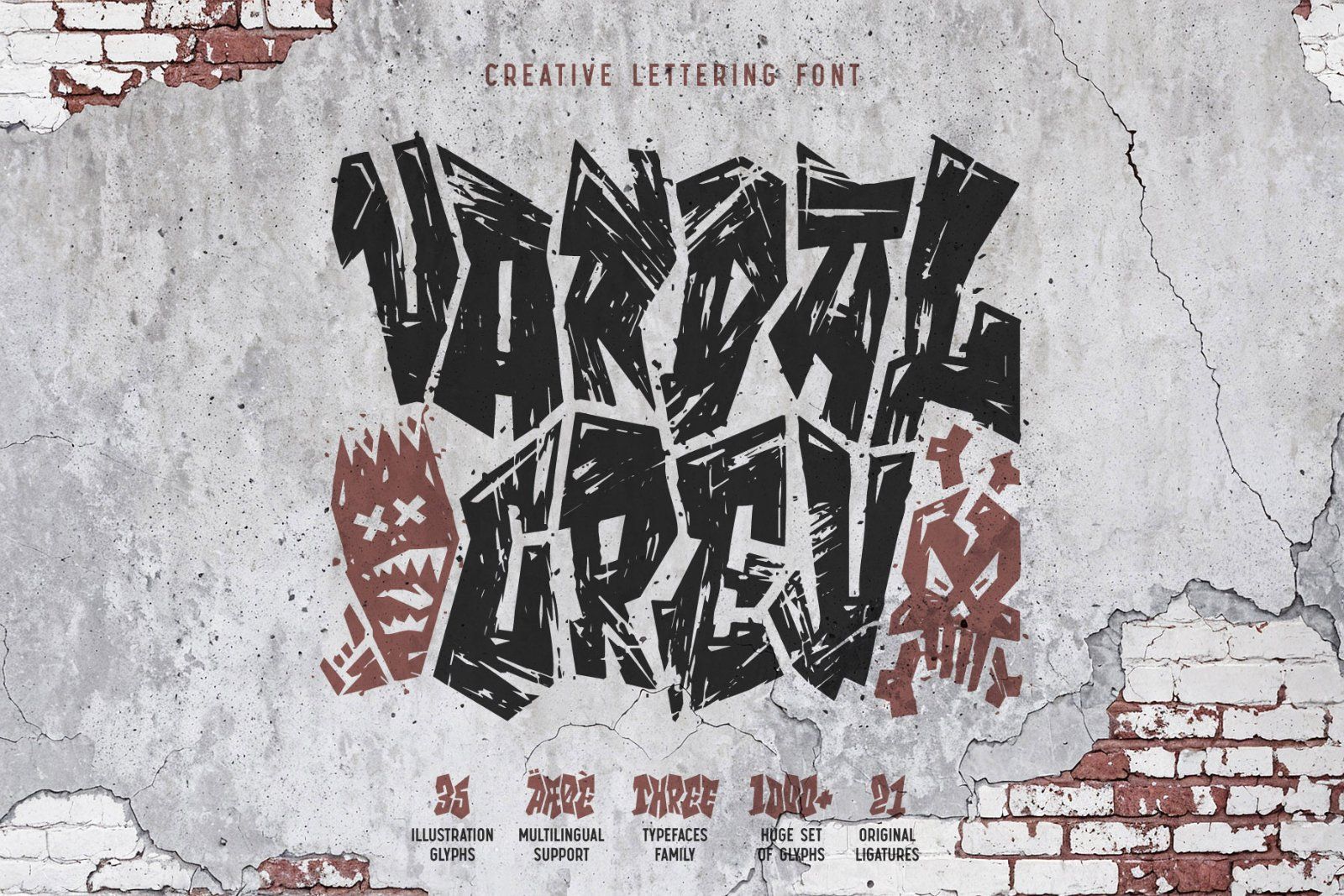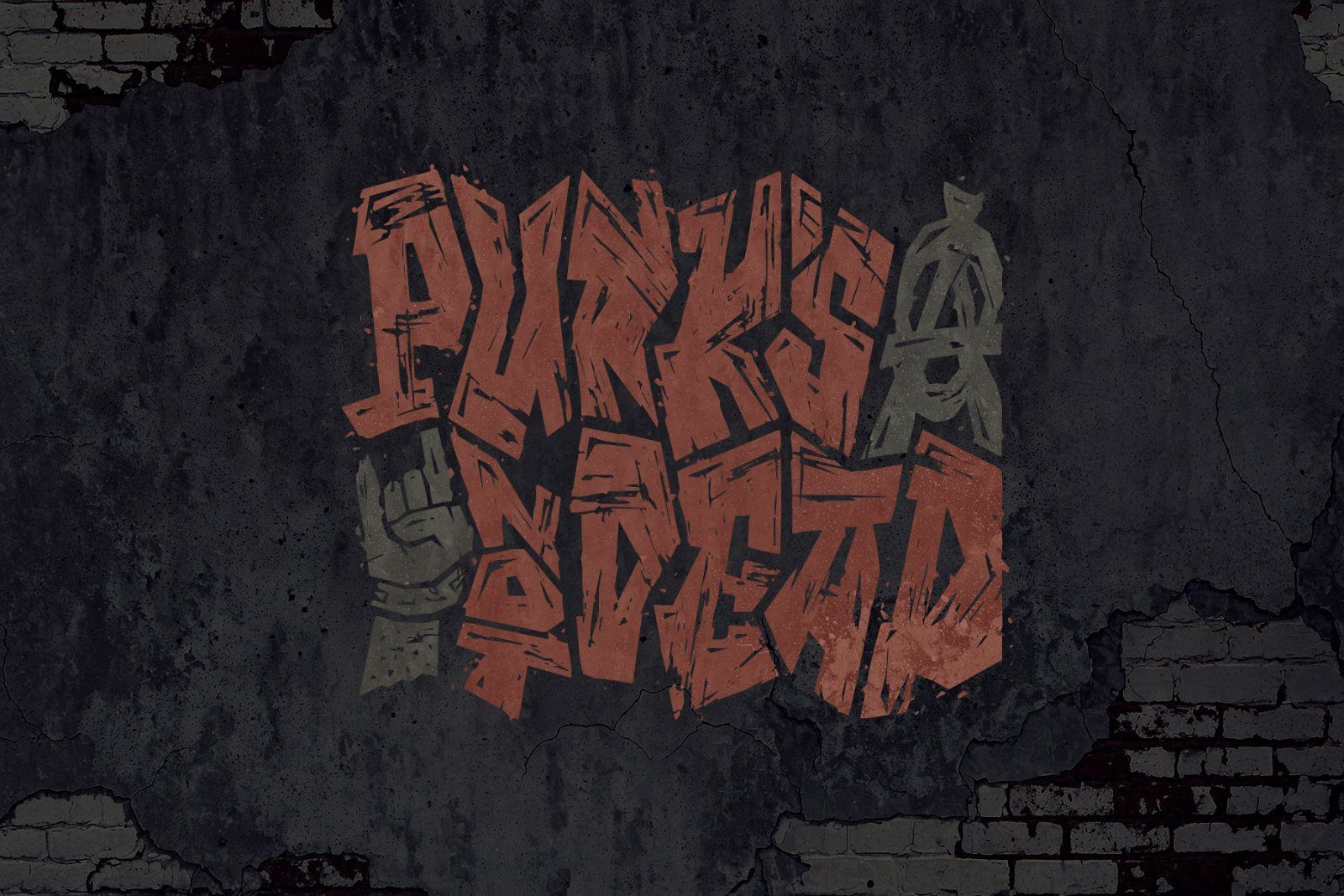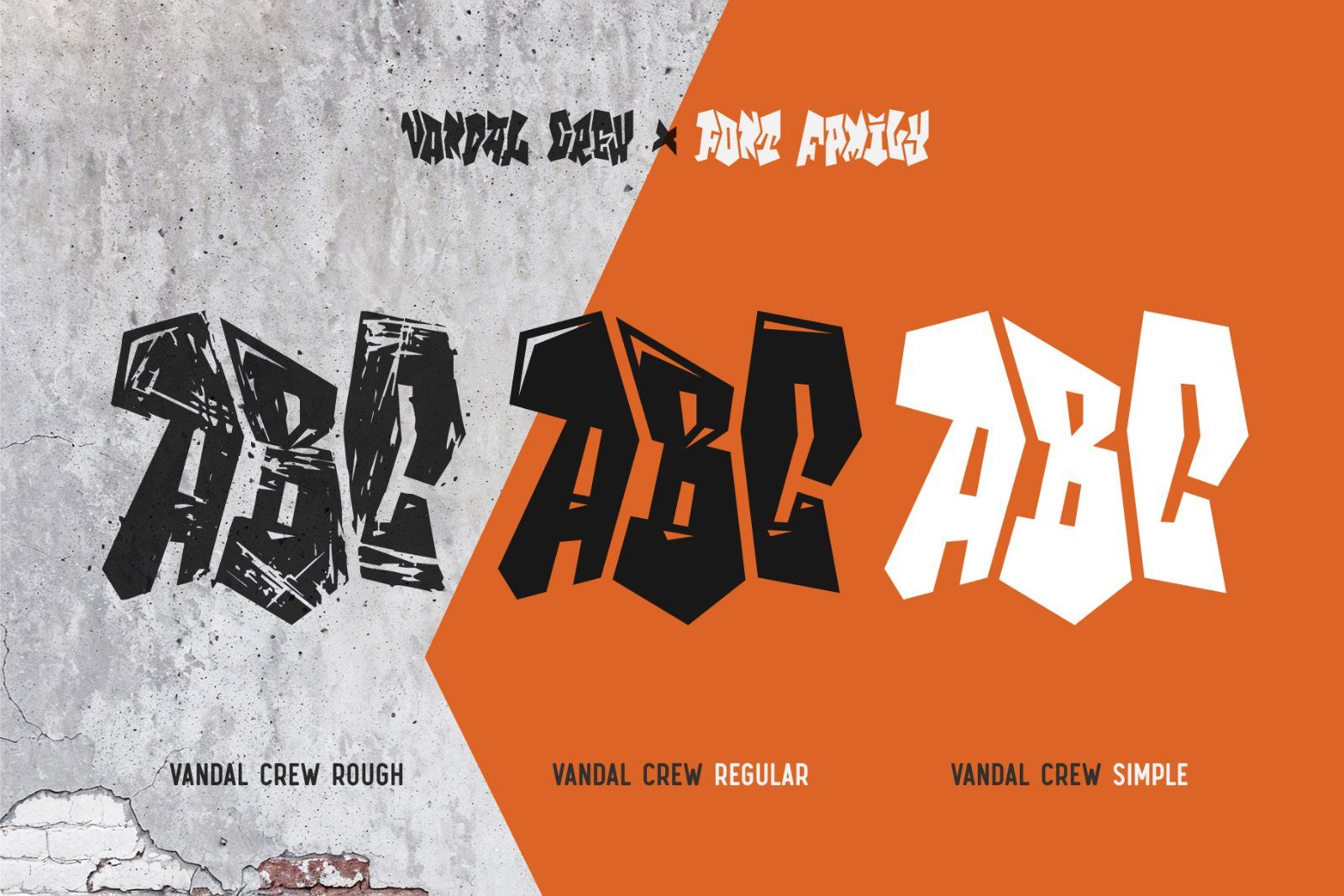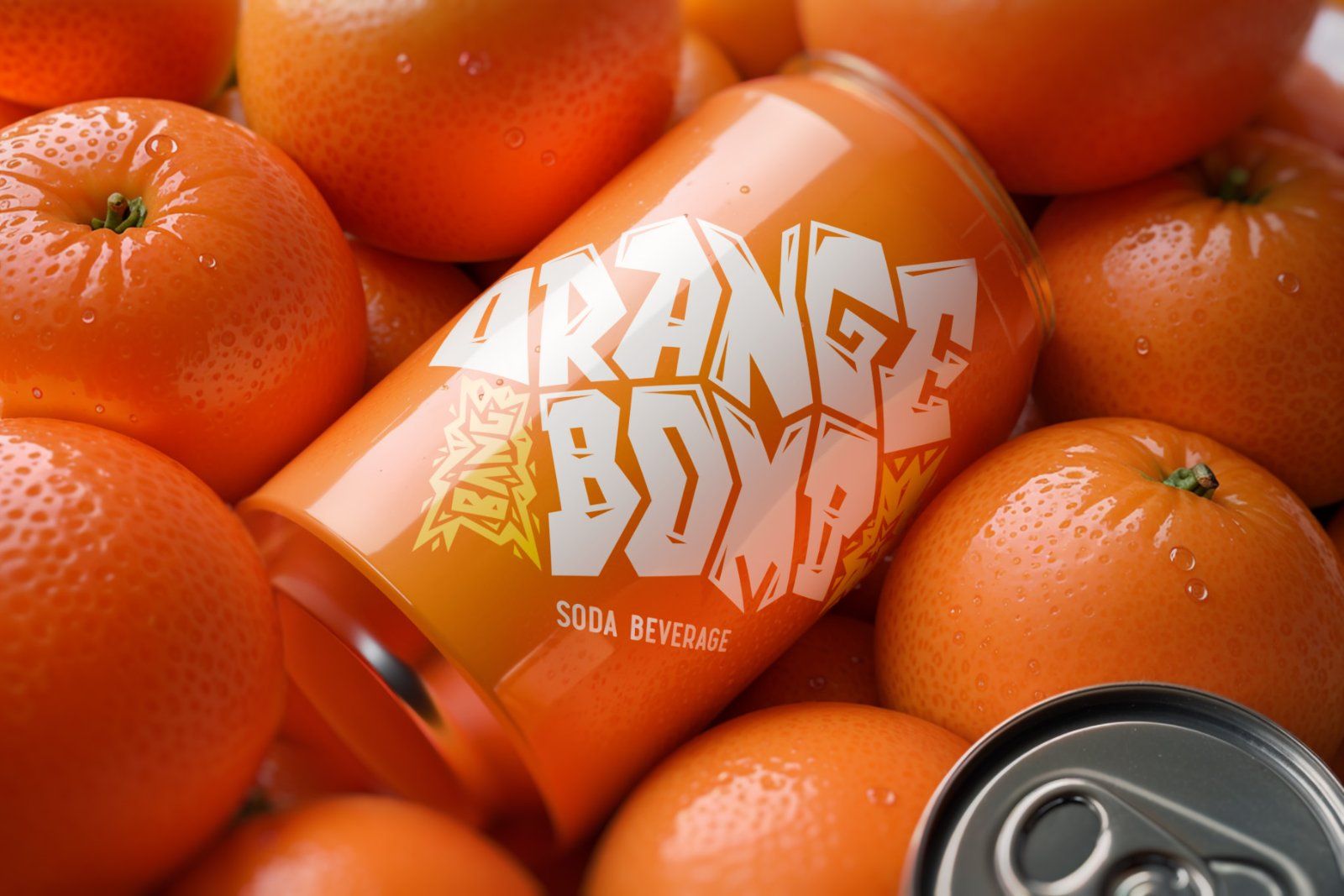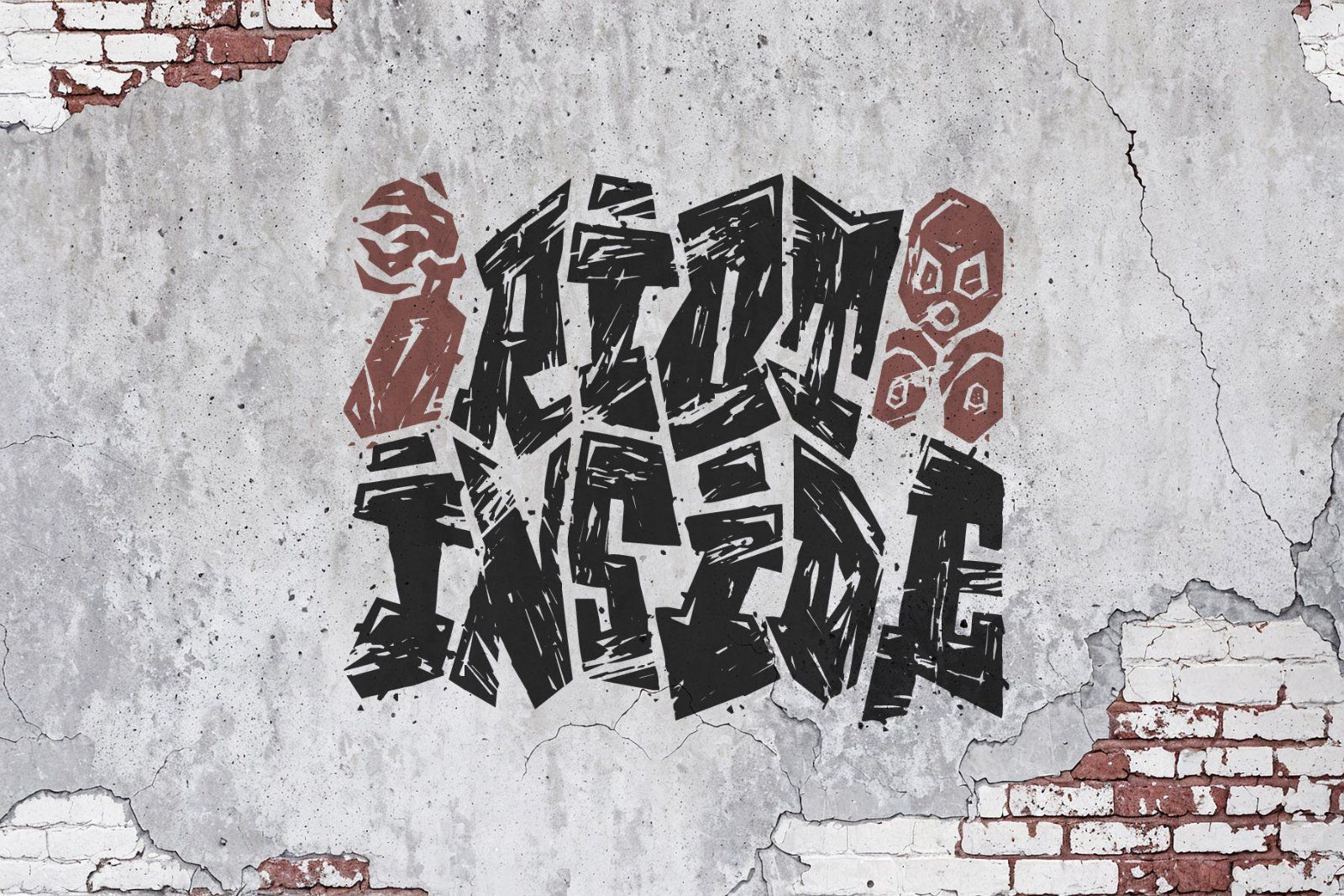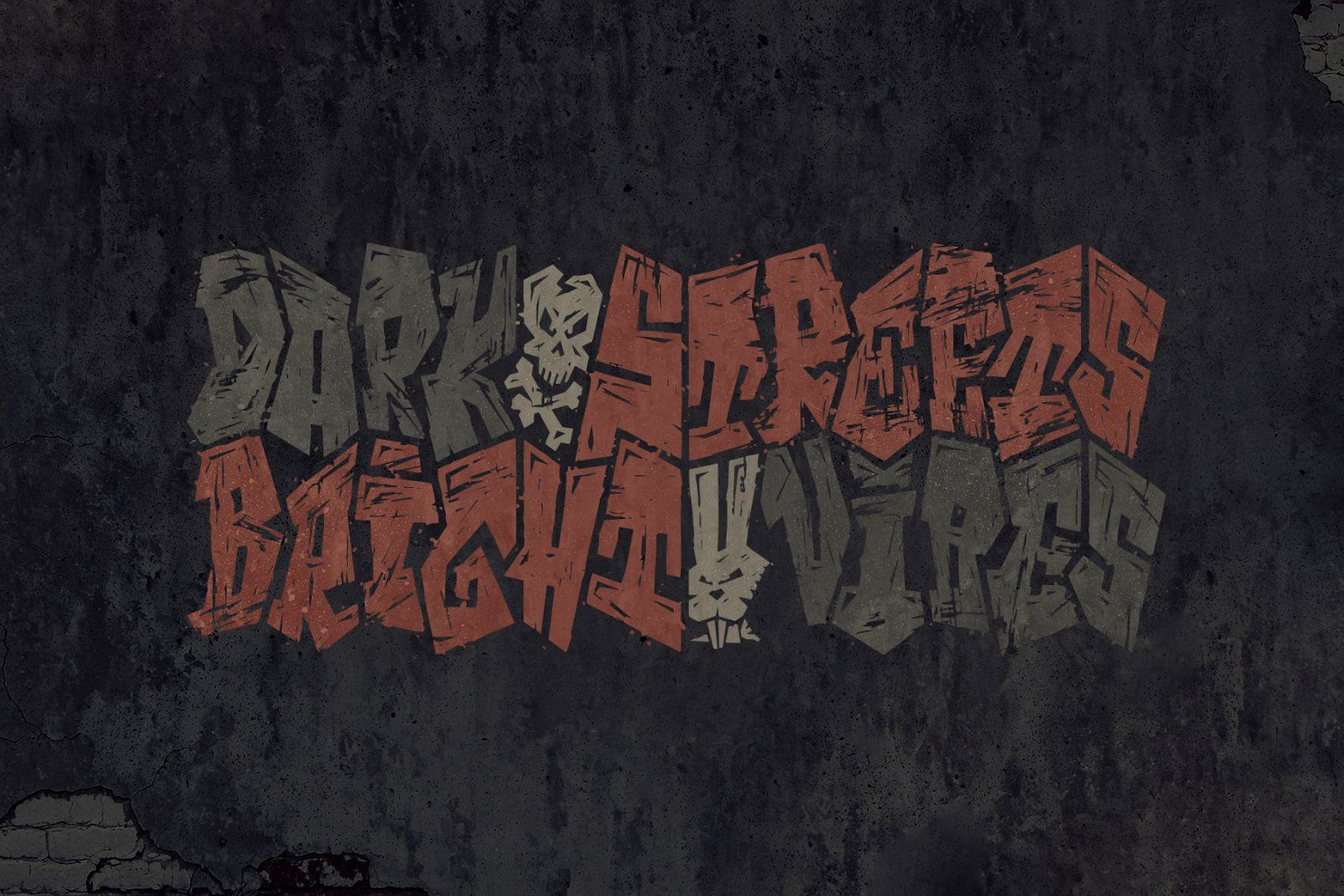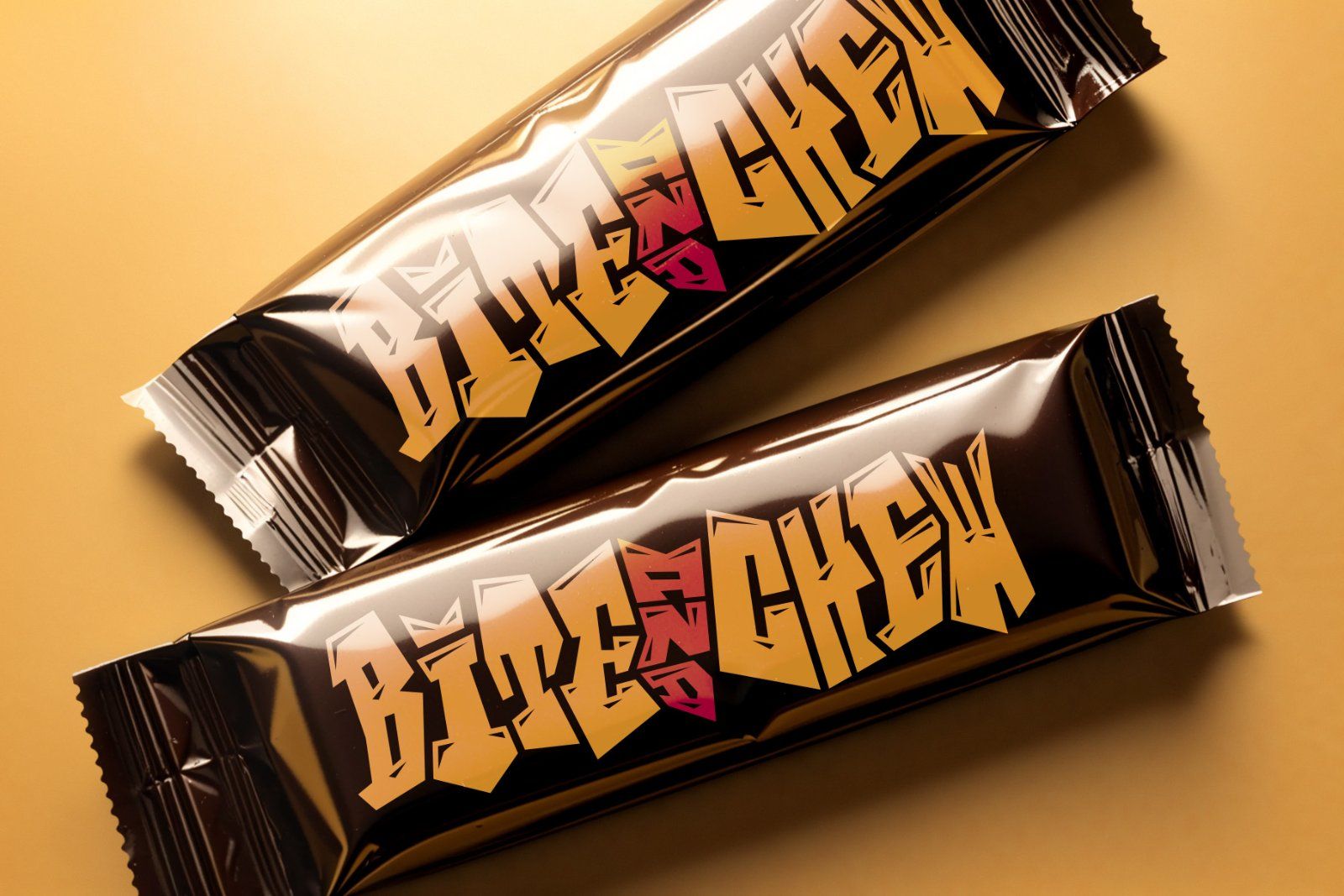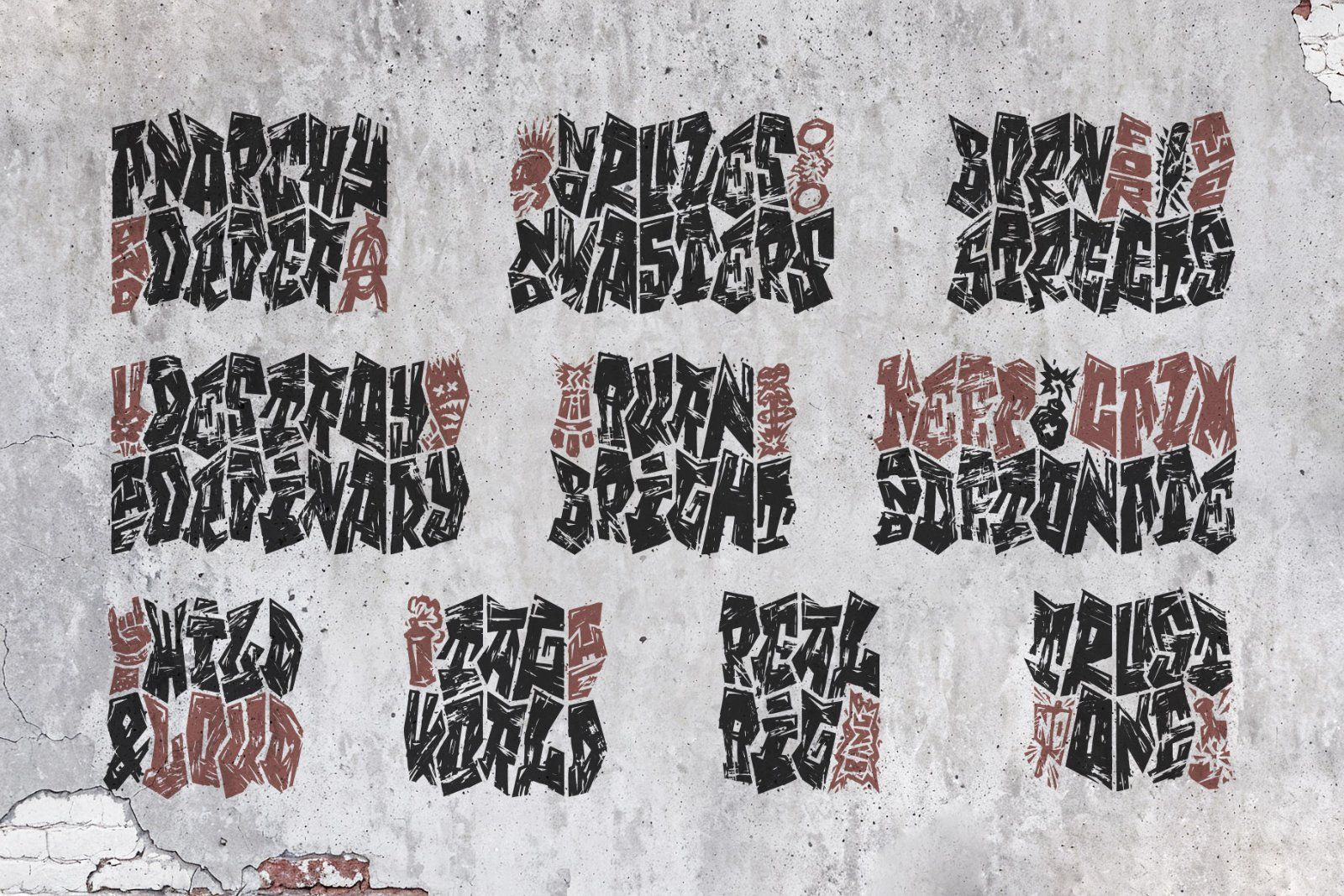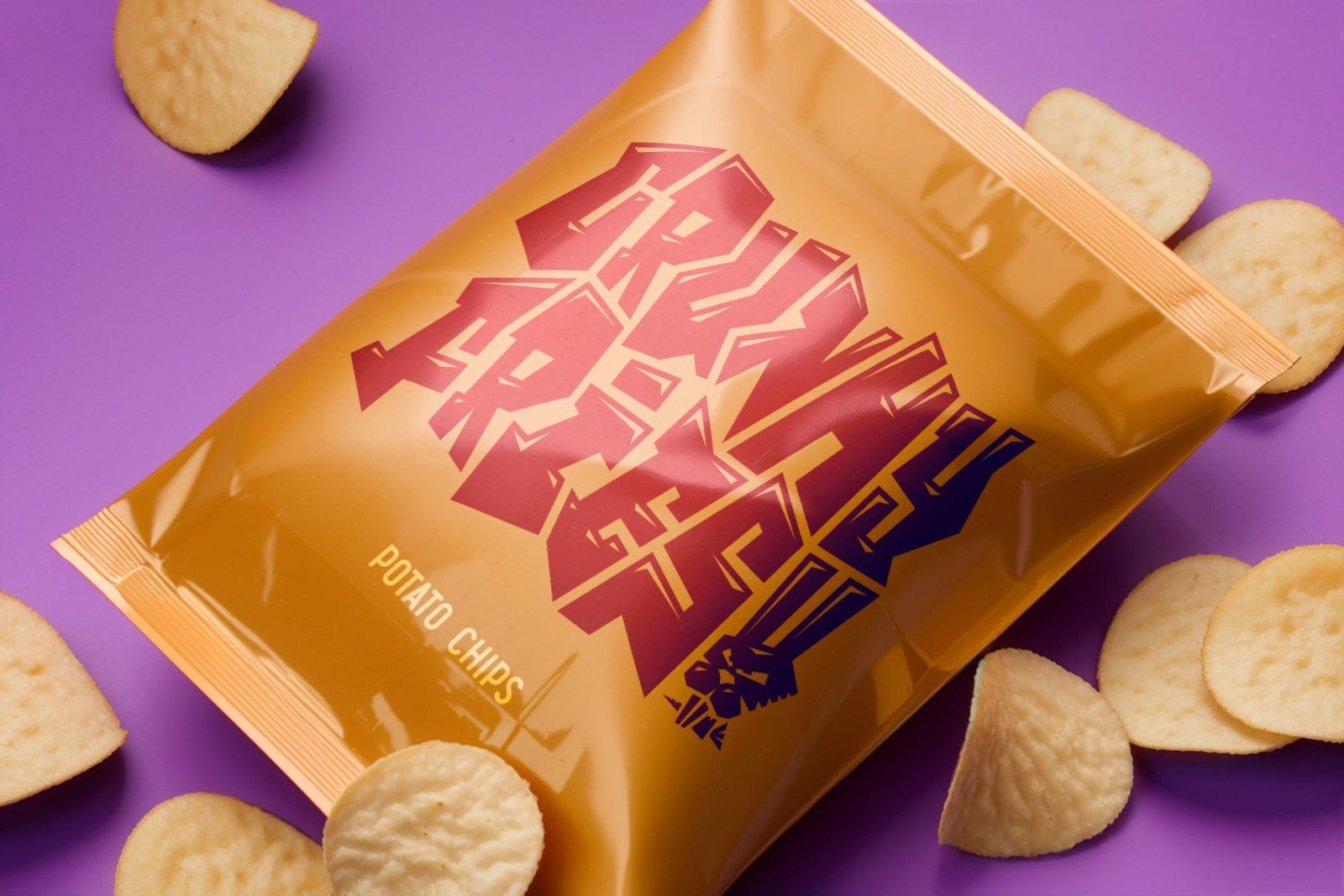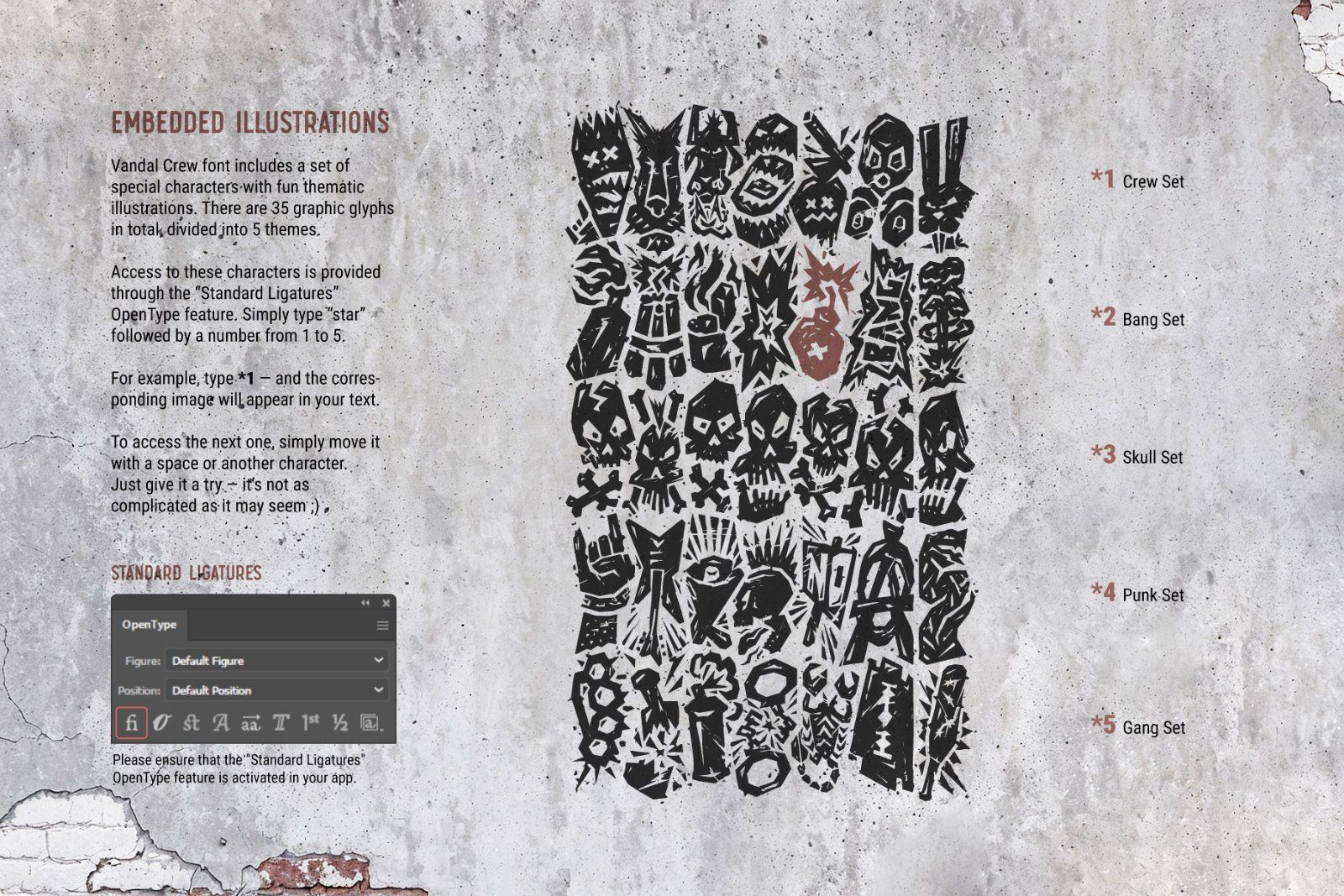
Unleash your inner rebel with Vandal Crew font — raw, loud, and full of attitude. Its rough edges and chaotic rhythm bring instant energy to any design. Perfect for creating bold, one-of-a-kind lettering that breaks every rule and owns the scene.
This font has unique features — 7 variations for most characters, giving your text a tight, natural lettering effect. Each letter is designed to fit seamlessly with the others, forming one organic piece.
Vandal Crew also includes a set of 35 special characters with fun, thematic illustrations. You can access them through the “Standard Ligatures” OpenType feature — just type “star” followed by a number from 1 to 5 (Like that — *1).
Vandal Crew font family includes three typefaces: Rough, Regular & Simple. Please make sure that OpenType features are available and enabled in your software.